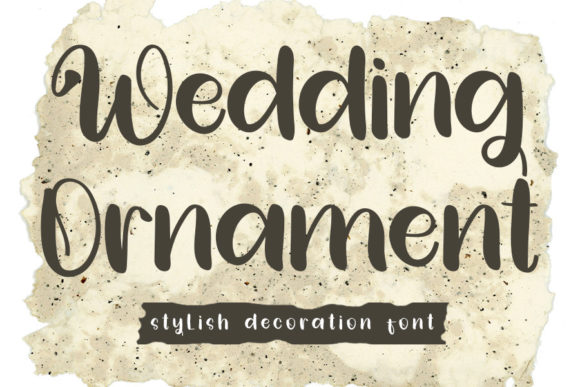
Journey into the realm of elegance and grace with our Wedding Ornament Font, a calligraphy script that exudes the charm and beauty of a bygone era. Its sweeping curves and intricate details evoke a sense of nostalgia, while its modern interpretation makes it fresh and relevant for today's designs.
Immerse yourself in the beauty of each letter, meticulously crafted to be distinctive yet harmonious, creating a visual symphony that dances across the page. Experience the captivating allure of this handwritten font, where each stroke tells a story of love, romance, and timeless enchantment.
Tailor-made for those seeking to infuse a touch of romance into their designs, Wedding Ornament Font excels in creating breathtaking invitations, ethereal wedding stationery, enchanting logos, and heartwarming social media posts. Its versatility extends to branding, packaging, and even the creation of personalized artwork that speaks to the heart.
Imagine your designs adorned with this enchanting font, reminiscent of love letters penned under moonlit skies. Let your words flow effortlessly, carried by the grace and elegance of Wedding Ornament Font, leaving a lasting impression that whispers of elegance and heartfelt emotion.
Step into a world where typography becomes art, where words are transformed into visual masterpieces. Embrace the allure of Wedding Ornament Font, a timeless treasure that will elevate your designs to new heights, leaving your audience spellbound.